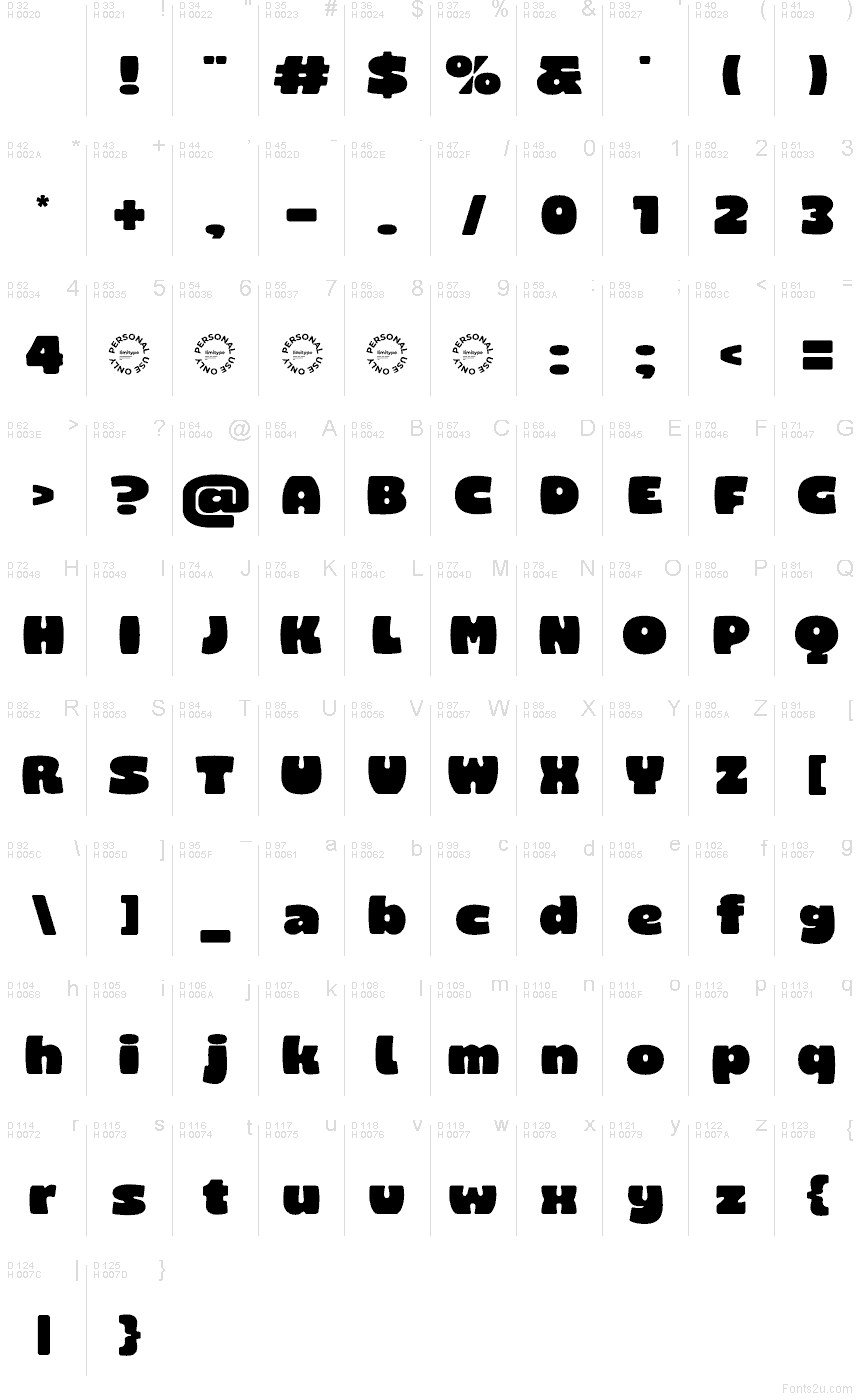
Hobsky DEMO
Hobsky by Limitype is a free blob-like cartoon display font with a soft, swollen silhouette and a playful wobble in every letter. The forms feel squashed and hand-shaped rather than neatly geometric, with chunky curves, deep notches, and slightly uneven rhythm giving the font an easy, comic tone.
It fits poster headlines, kid-focused packaging, snack branding, game titles, and YouTube cover lines where big, bouncy lettering carries the mood. As a free font, Hobsky DEMO also works for short logos and title cards, because the thick, pillowy letters read more like drawn shapes than formal type.